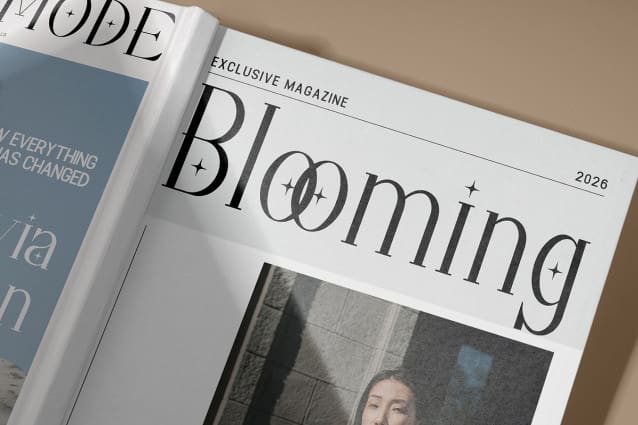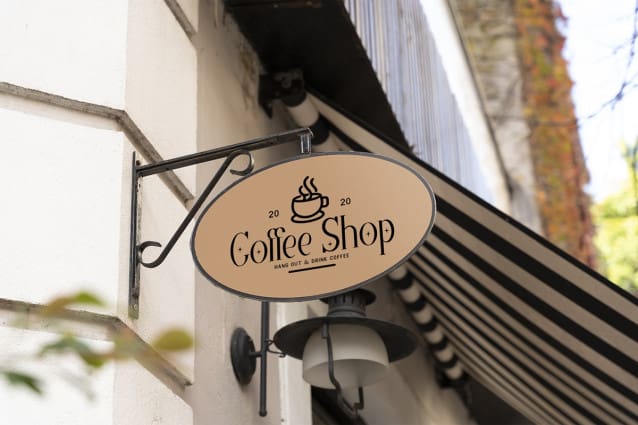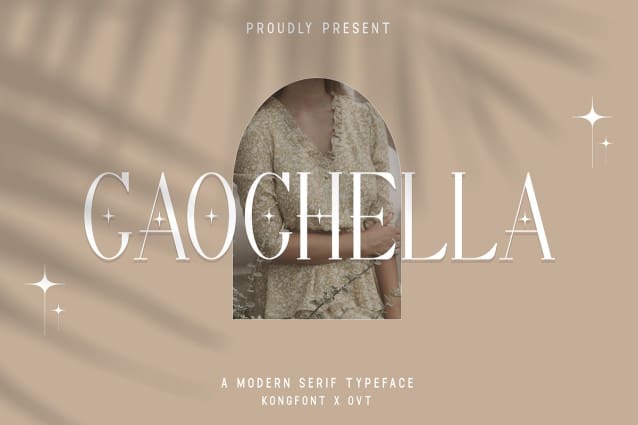
Caochella Font
Caochella Font, a modern serif typeface that embodies timeless elegance with a contemporary edge. Inspired by the iconic style of the desert festival, Caochella brings sophistication and versatility to your designs.
With its clean lines and balanced proportions, Caochella Font is perfect for a wide range of applications, from editorial layouts to branding and beyond. Whether you’re crafting a magazine spread, a logo, or a website, this font adds a touch of refinement and professionalism to every project.
Designed for ease of use, Caochella offers a full range of characters, including various weights and styles, ensuring flexibility and adaptability for any design endeavor. Whether you’re aiming for a classic look or a more modern aesthetic, Caochella delivers with style and grace.
Experience the beauty of timeless elegance with a modern twist with Caochella and elevate your designs to new heights.